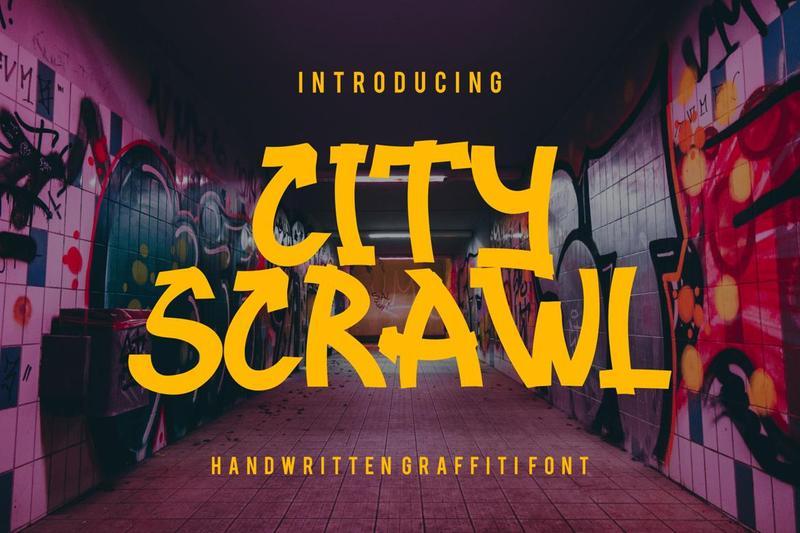
City Scrawl Graffiti Font CED37G5
City Scrawl is a Graffiti font that we designed with original touch for your needs.
This cool font is complete with Uppercase, Lowercase, Numeric & symbols. This very strong and sharp font is perfect
for titles, typography, posters, magazines, brochures, packaging, Websites and much more for your design needs, making your designs more cool.